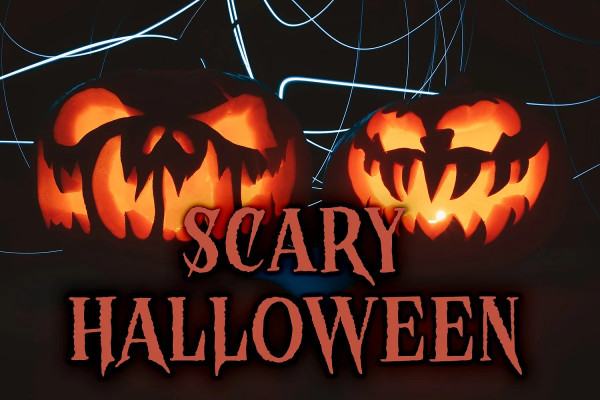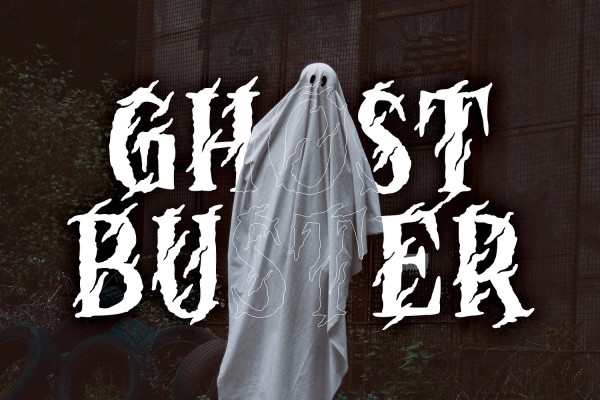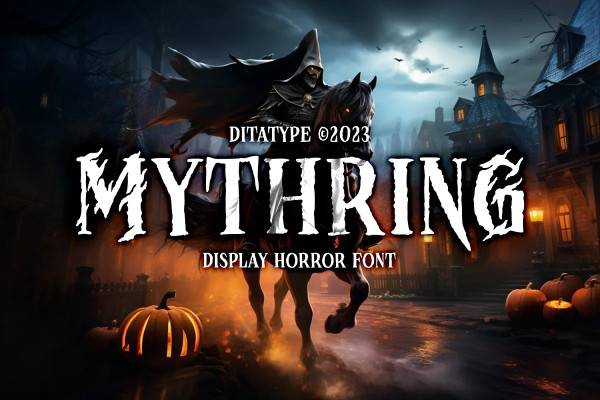
Mythring Display Font
Mythring Display Font is a spine-chilling display font that will cast a spell of fear on your designs. Designed in uppercase and with a bold weight, this typeface demands attention and exudes an aura of darkness and mystery. Each letter is meticulously crafted with details resembling menacing plant roots with sharp edges, adding an eerie and sinister touch to the font. With its bold weight and uppercase design, this font creates a powerful and impactful presence.
The root-like details in each letter of Mythring Display Font give the font an organic and unsettling appearance, as if the letters are entangled with malevolent and ancient roots. These haunting details add a sense of otherworldly energy and create an atmosphere of foreboding and suspense.
The combination of bold weight and sharp-edged root details gives this font a sinister and enigmatic look, evoking images of dark and sinister forces lurking in the shadows. The letters seem to possess an aura of malevolence, making it an ideal choice for projects that delve into the horror and the supernatural. For the best legibility you can use this font in the bigger text sizes. Enjoy the available features here.